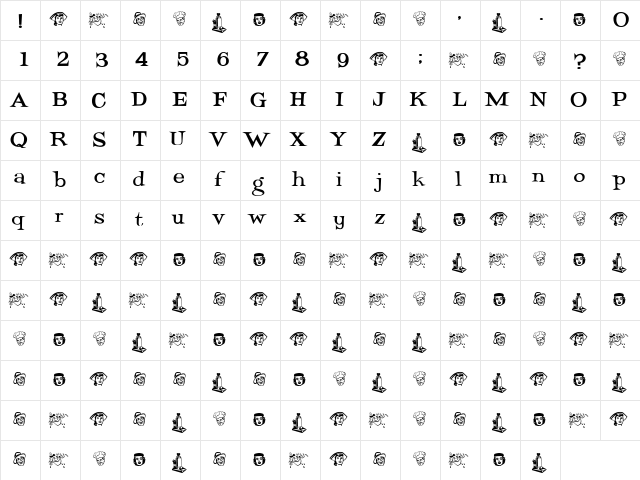
Potrzebie Regular
Design Context for Potrzebie Typeface
Potrzebie takes a measured approach to typography — its balanced proportions and neutral character make it a reliable workhorse for both digital and print work.